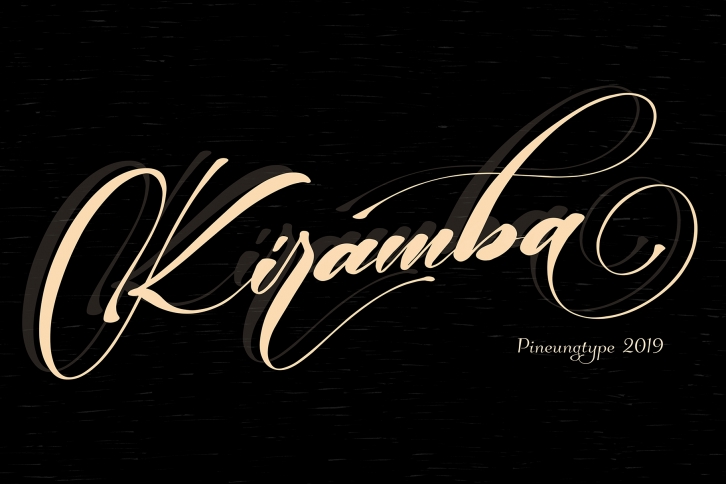
Kiramba is a trendy and unique font with an authentic style. It was designed by Pineungtype and it's a great choice for creative people who need such a font. It was released on February 9, 2019 and the file size is 14.2 MB. Kiramba will add an organic vibe to any design idea!